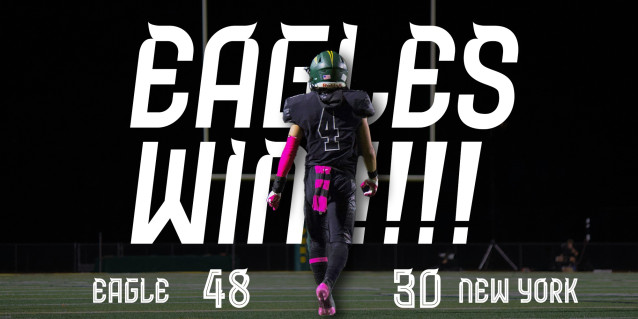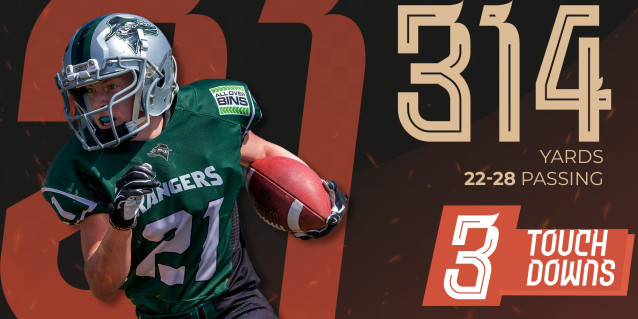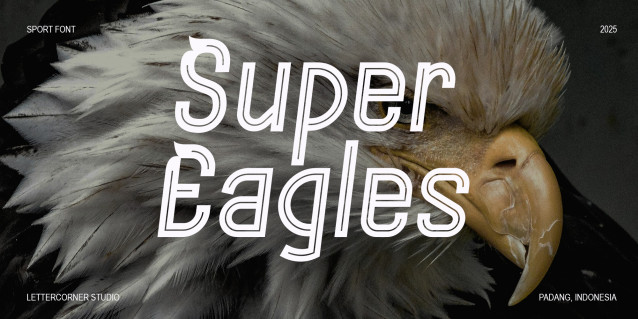
Super Eagles Font
Super Eagles Font – A Typeface of Power, Speed, and Vision. Dynamic. Fearless. Majestic — like an eagle soaring high, cutting through the sky with unstoppable force.
“Super Eagles” is a bold sans serif display font crafted with competitive energy and sharp confidence. Inspired by the strength and authority of the eagle, each letter fuses geometric precision with aerodynamic motion, embodying both power and agility.
With its Regular style for solid impact and Inline variant for expressive flair, “Super Eagles” offers versatile options for striking visual identities. It brings together the spirit of sports, the drive of competition, and the commanding presence that instantly captures attention.
Perfect for sports branding, team logos, jerseys, posters, and any design that demands speed, courage, and triumph. “Super Eagles” is more than just a font — it’s a symbol of strength and vision beyond limits.